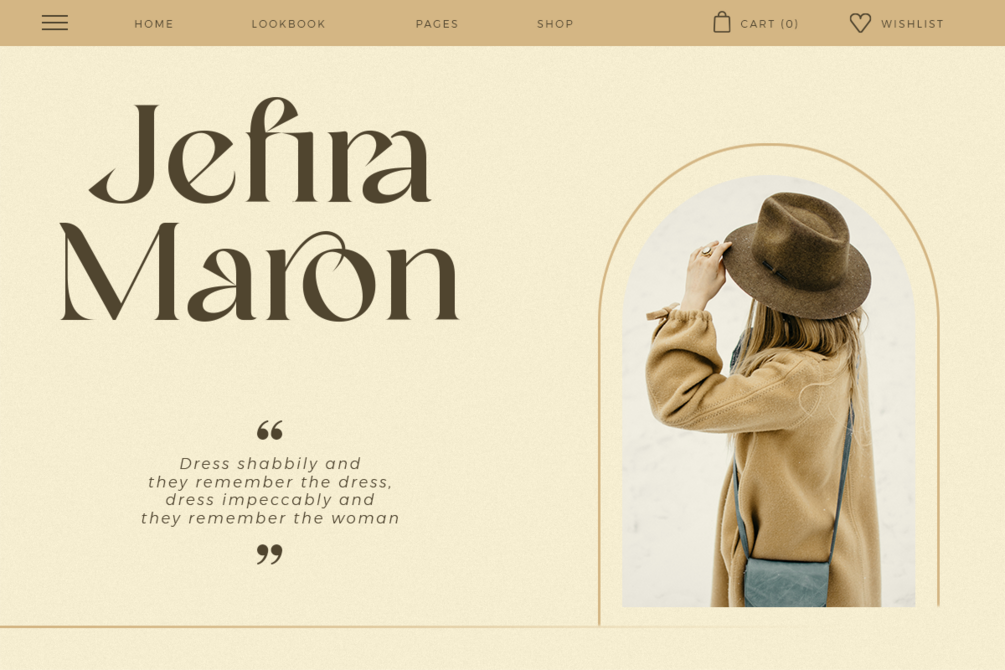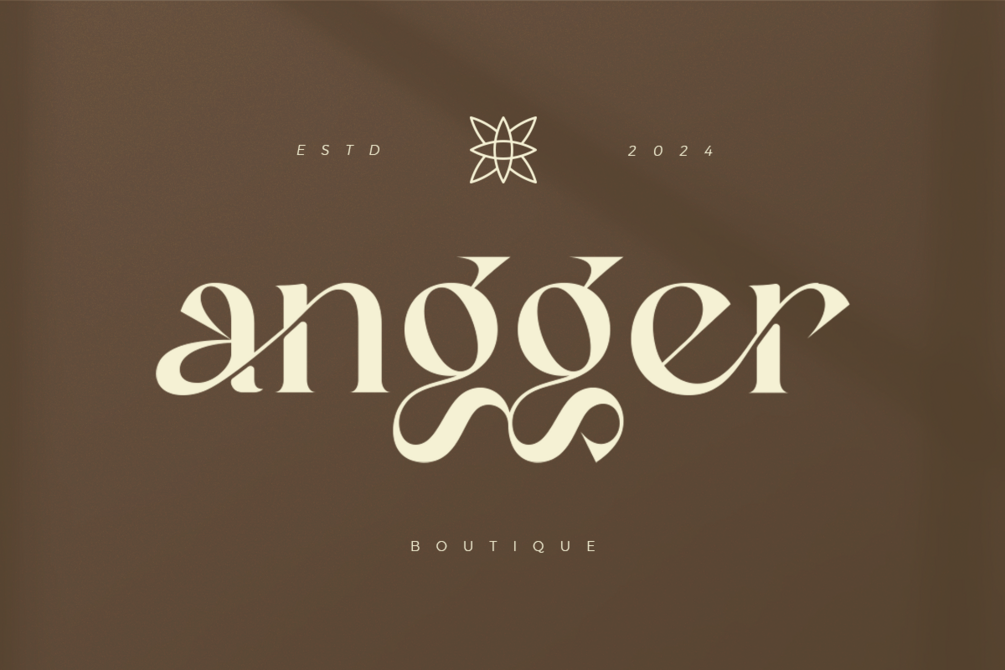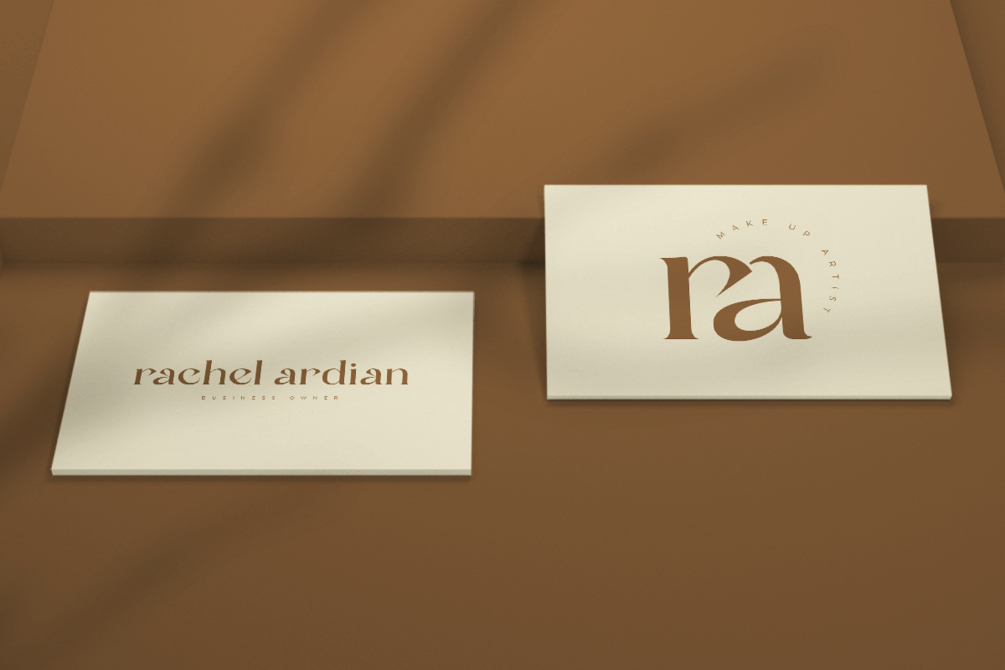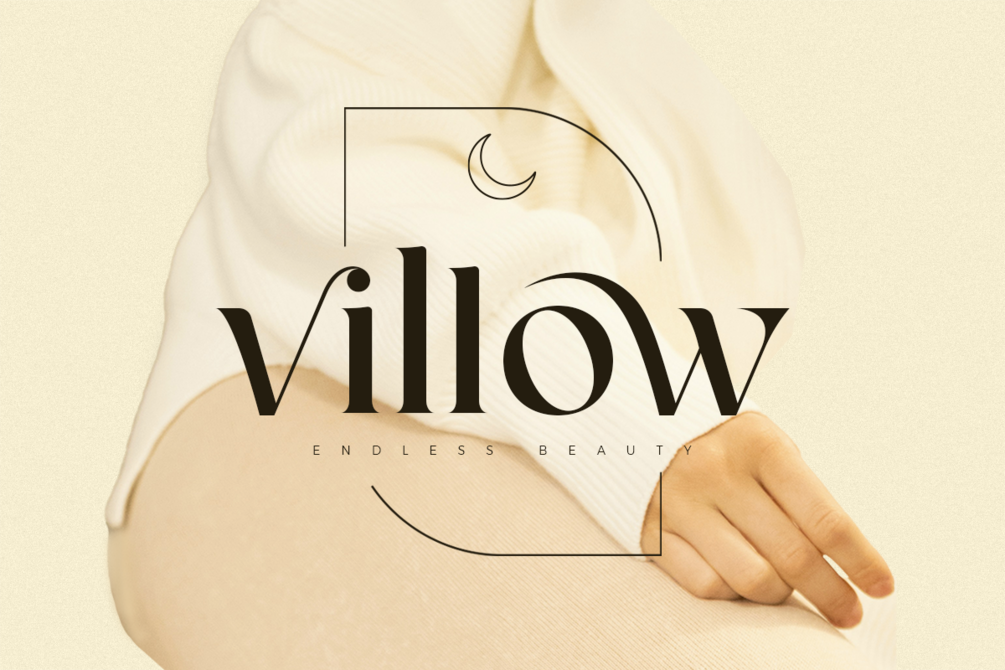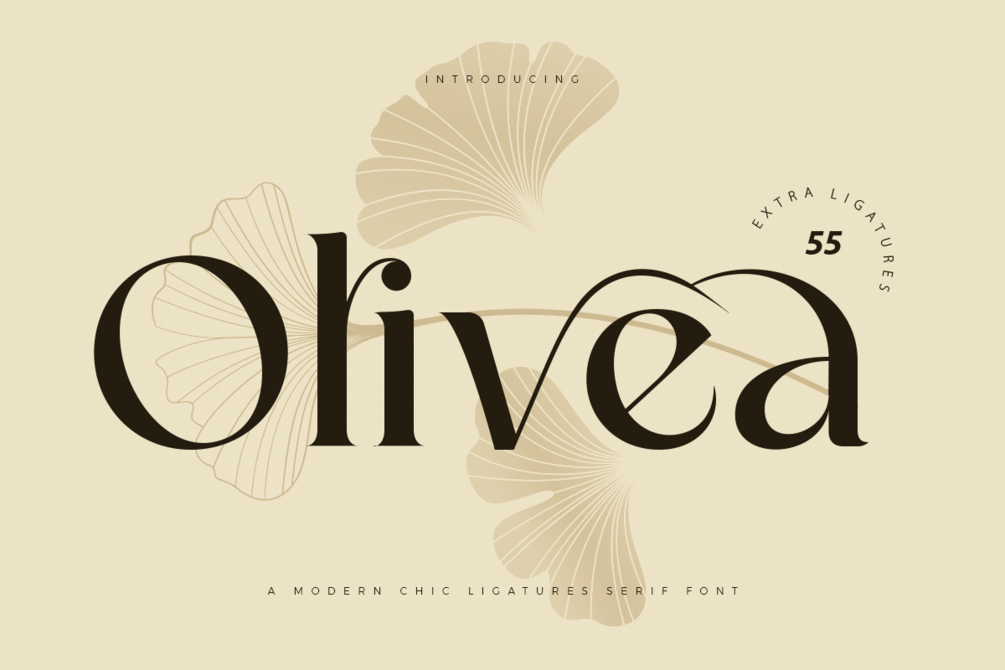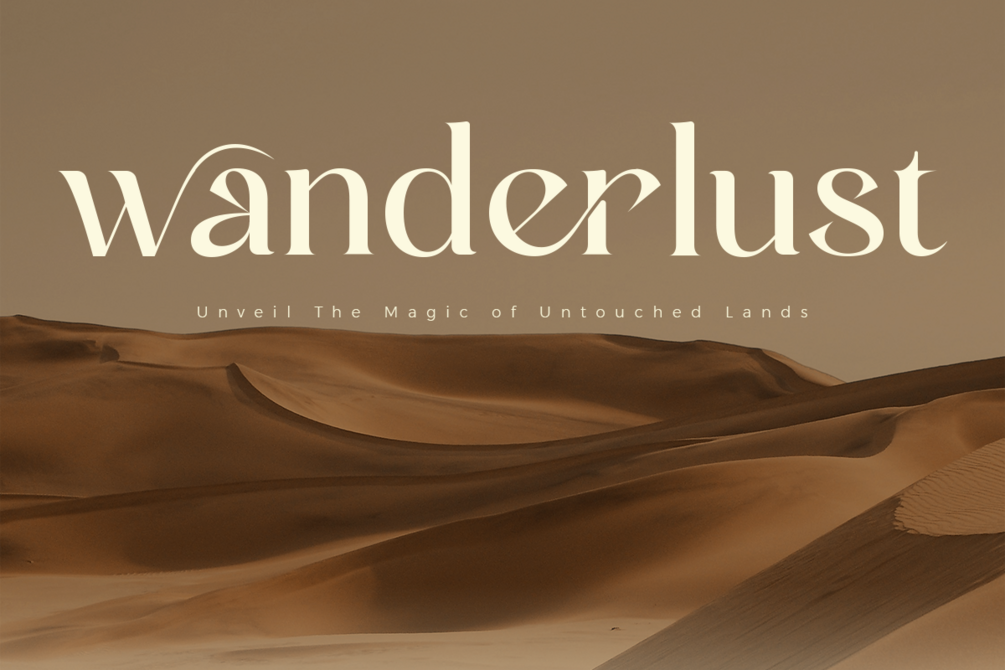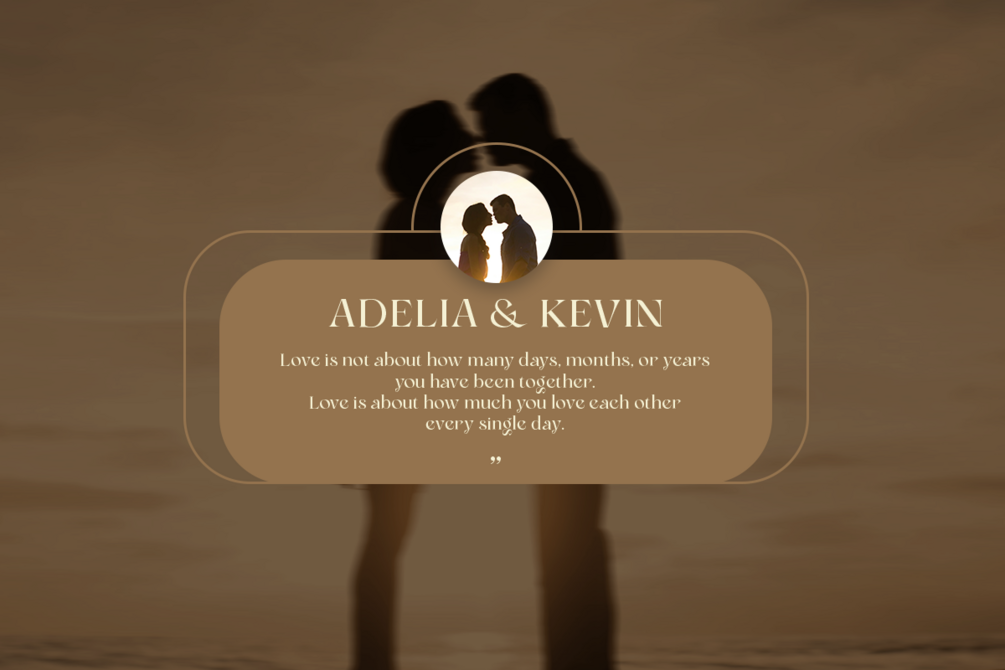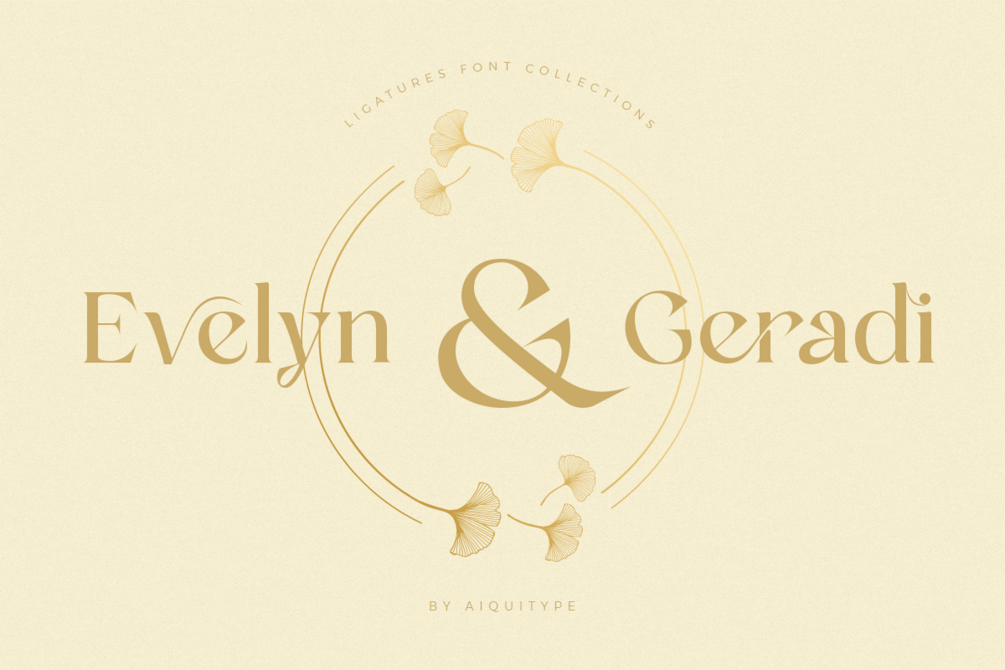
Olivea - Chic Ligatures Serif Font
It's A Modern Chic Ligatures Font. Coming with 55 Ligatures CollectionOlivea Ligatures, called Olivea - Serif Font. A modern serif font designed to elevate your projects with sophistication and style. With its sleek lines and subtle curves, Olivea exudes elegance and versatility, making it perfect for everything from branding to editorial design.
Very suitable for logo, branding project, magazine, headline, website, ads, product package and all type of design project you have.
1. Chic characters on Uppercase, Lowercase, Numbers and Punctuation
2. Ready 55 Ligatures with sleek lines